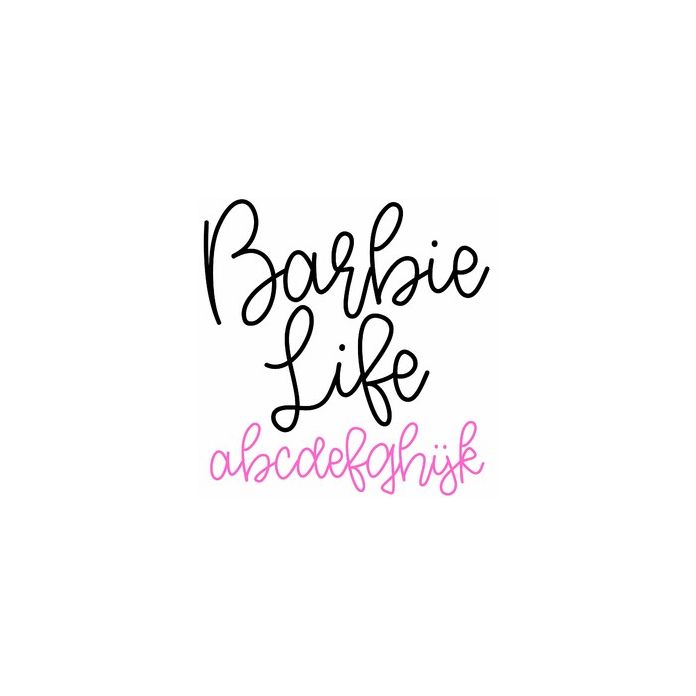
Barbie Life is a bouncy handwriting script font, fun for signs, cards, monograms, notes, planners, stickers, labels, crafts, and personalization projects. Includes alphabet, numbers, and punctuation.